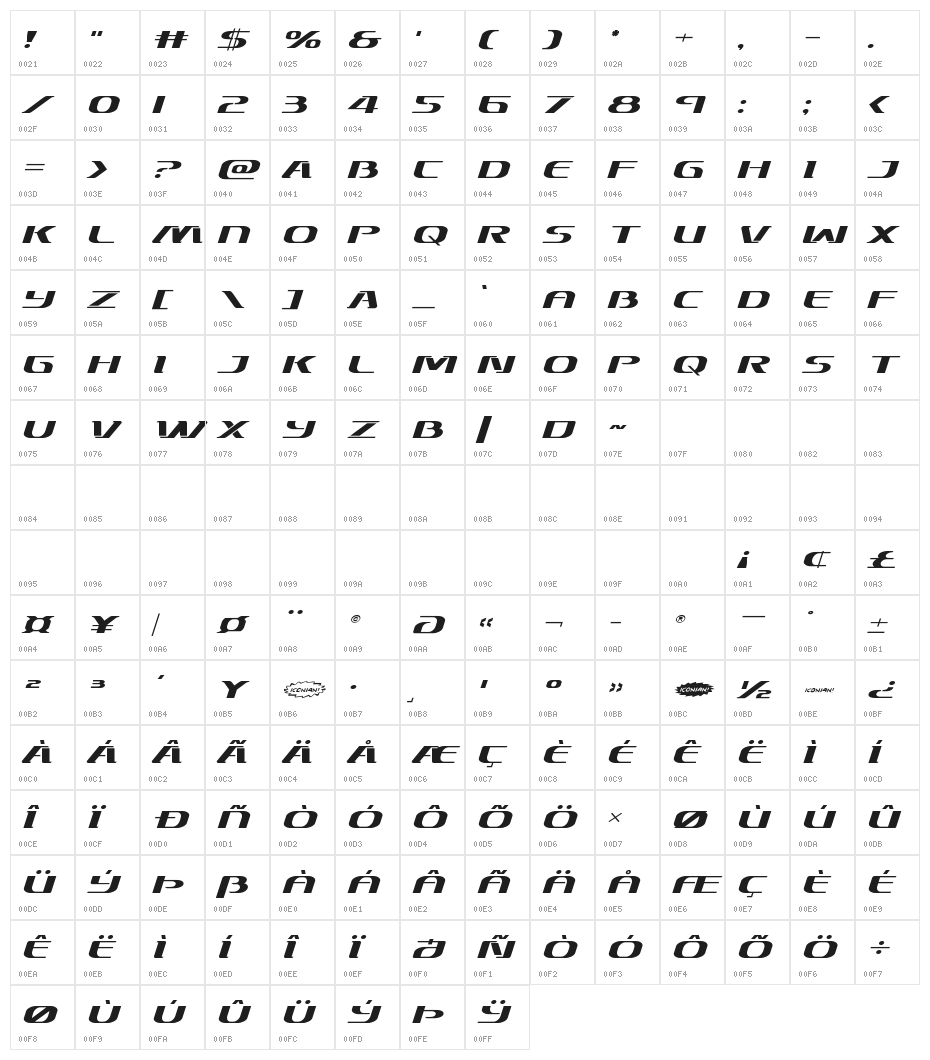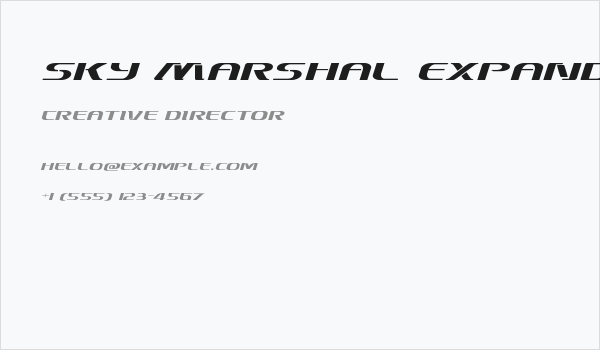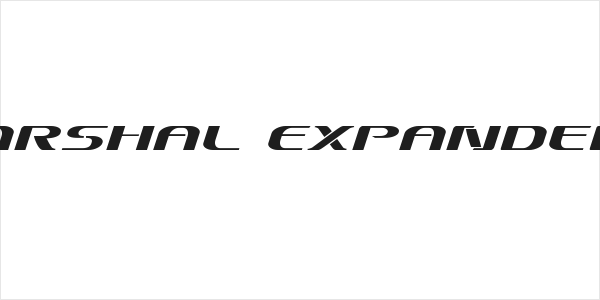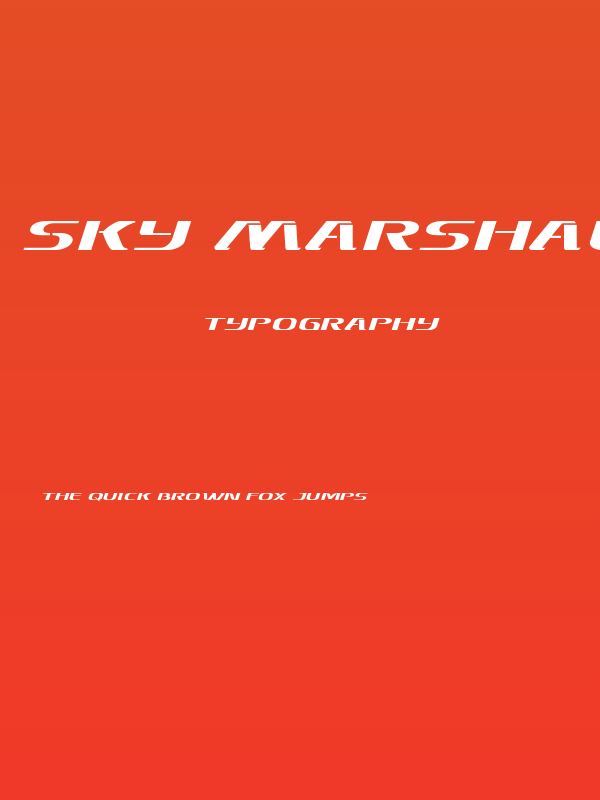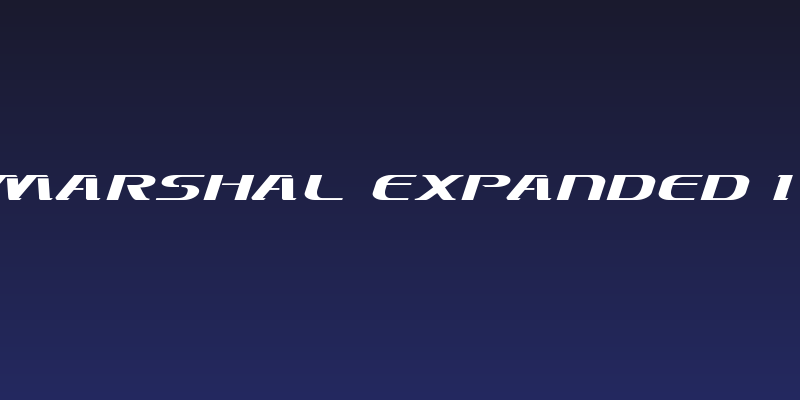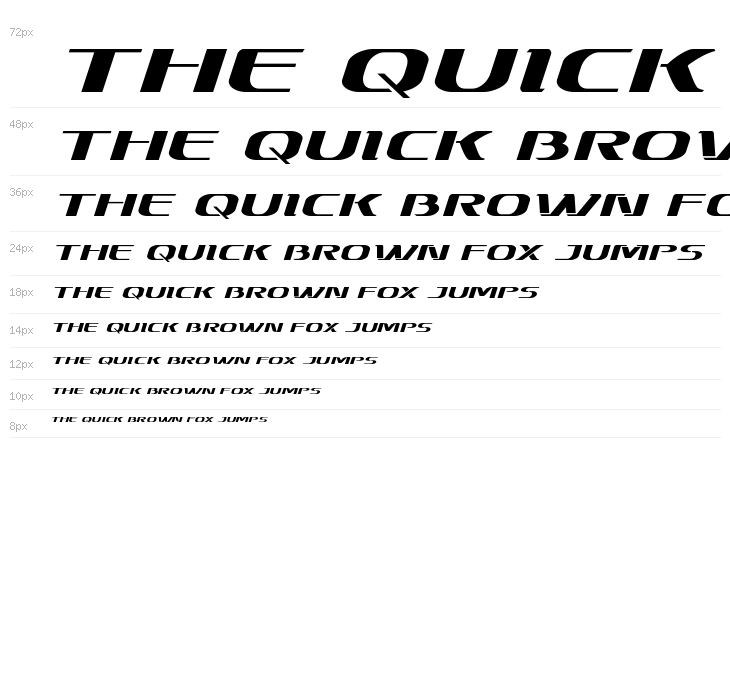
Sky Marshal Expanded Italic Font
Sky Marshal Expanded Italic Description
This typeface exudes a futuristic and dynamic aesthetic, characterized by its italicized and expanded letterforms. The angular cuts and sharp edges give it a sense of motion and speed, making it ideal for projects that require a modern and energetic feel. The uppercase and lowercase letters maintain a consistent style, with a slight slant that enhances its sleek appearance. The numerals and special characters are designed to complement the alphabet, ensuring uniformity across all text elements. Its bold presence makes it suitable for attention-grabbing headlines and impactful designs.
| Proposed Projects | Ideal for sci-fi themed designs, technology branding, sports team logos, and dynamic advertising campaigns. |